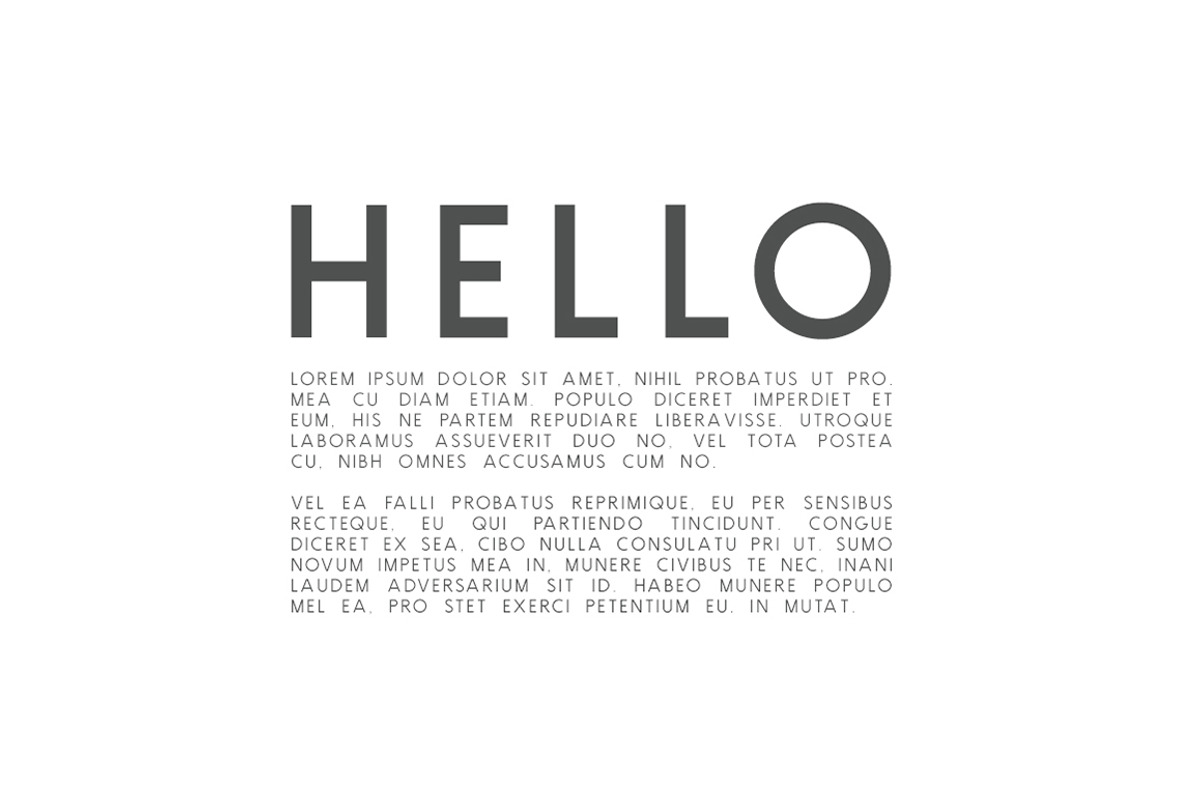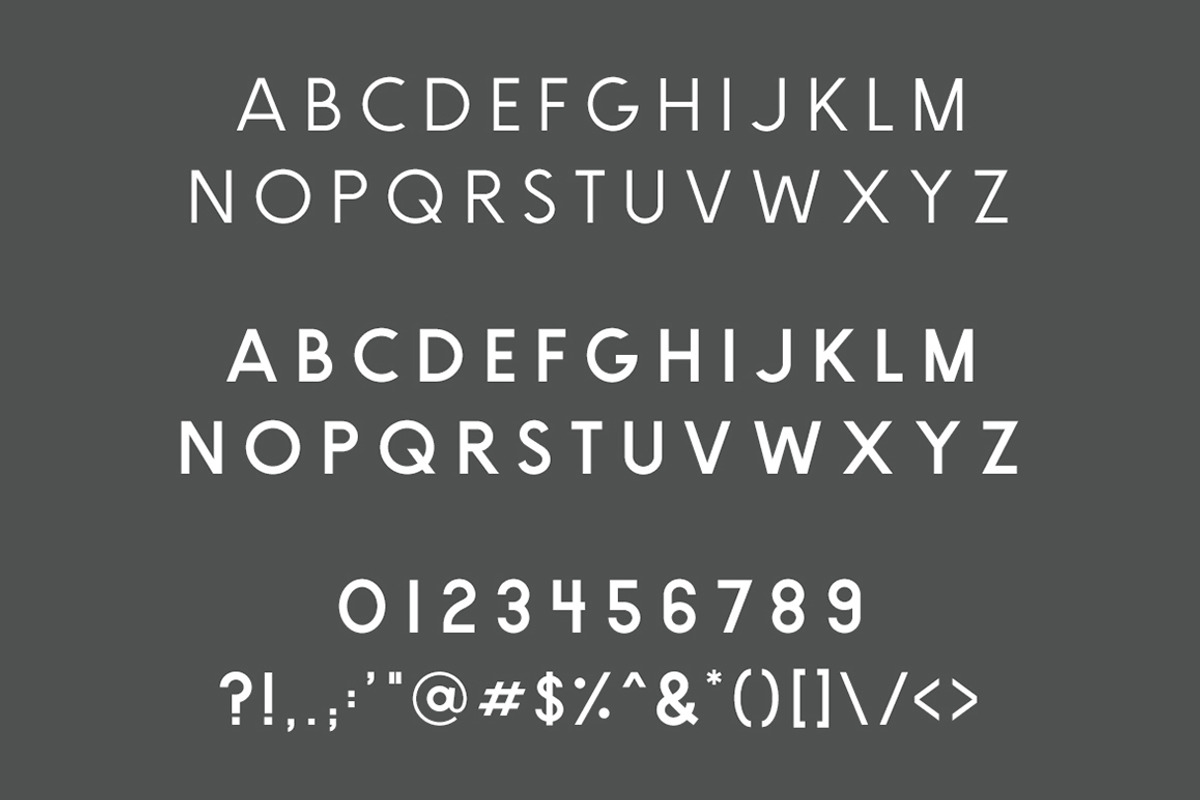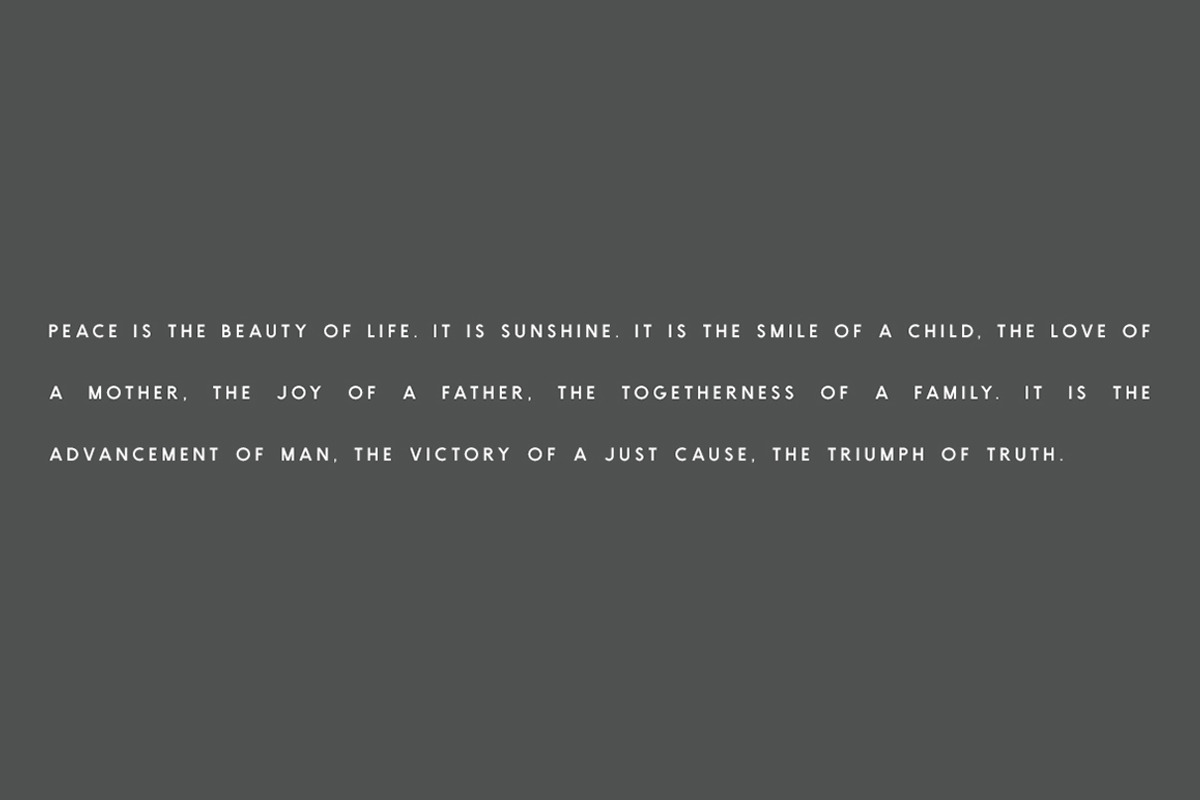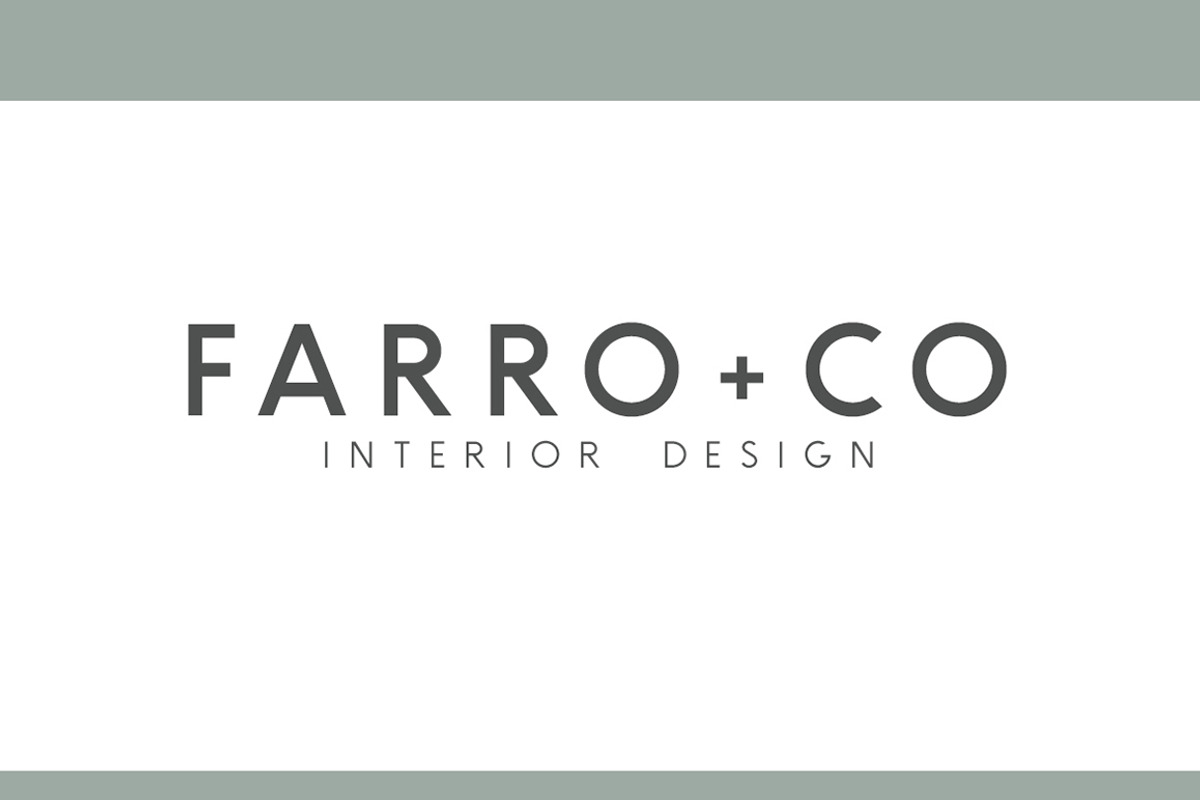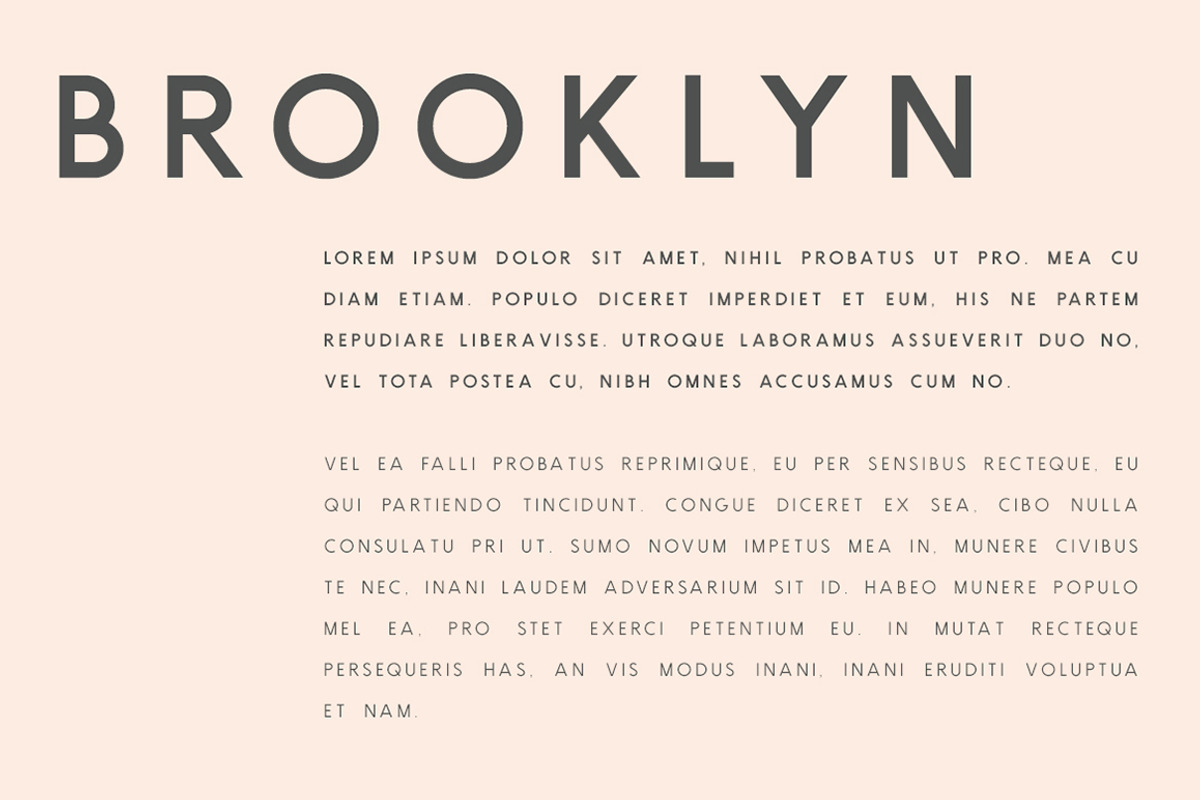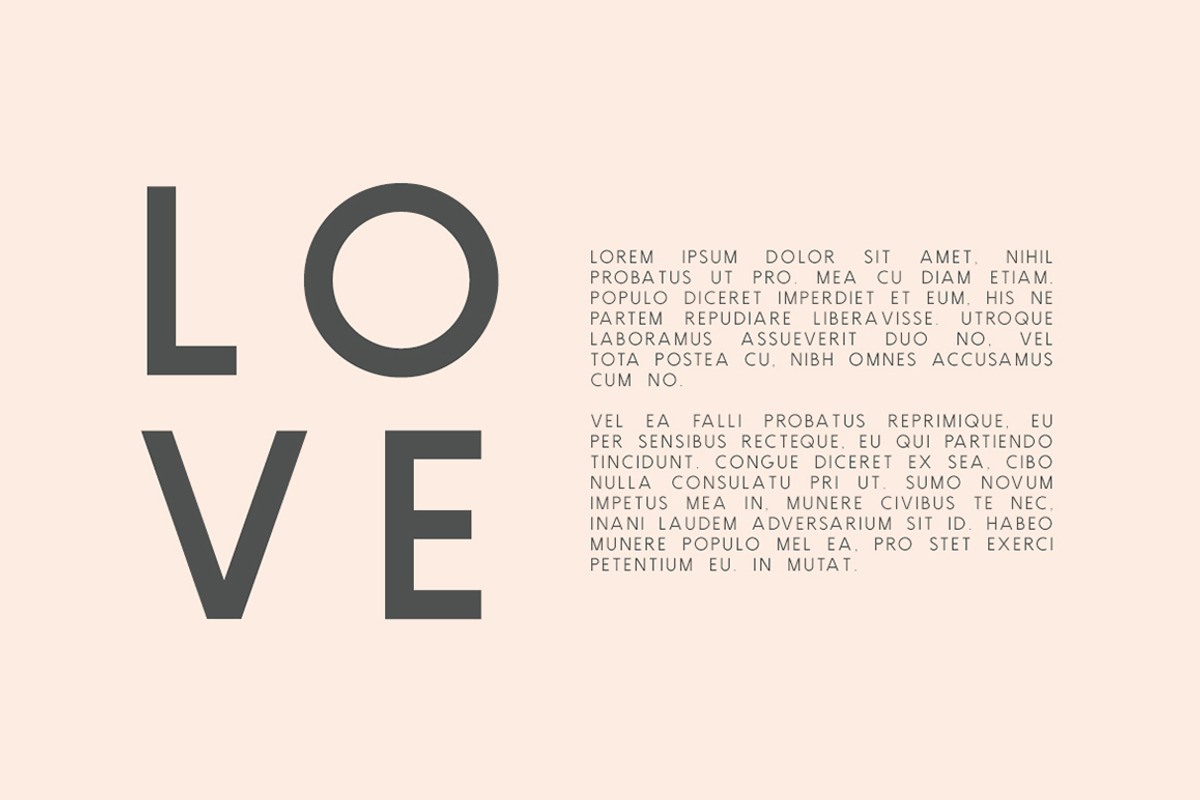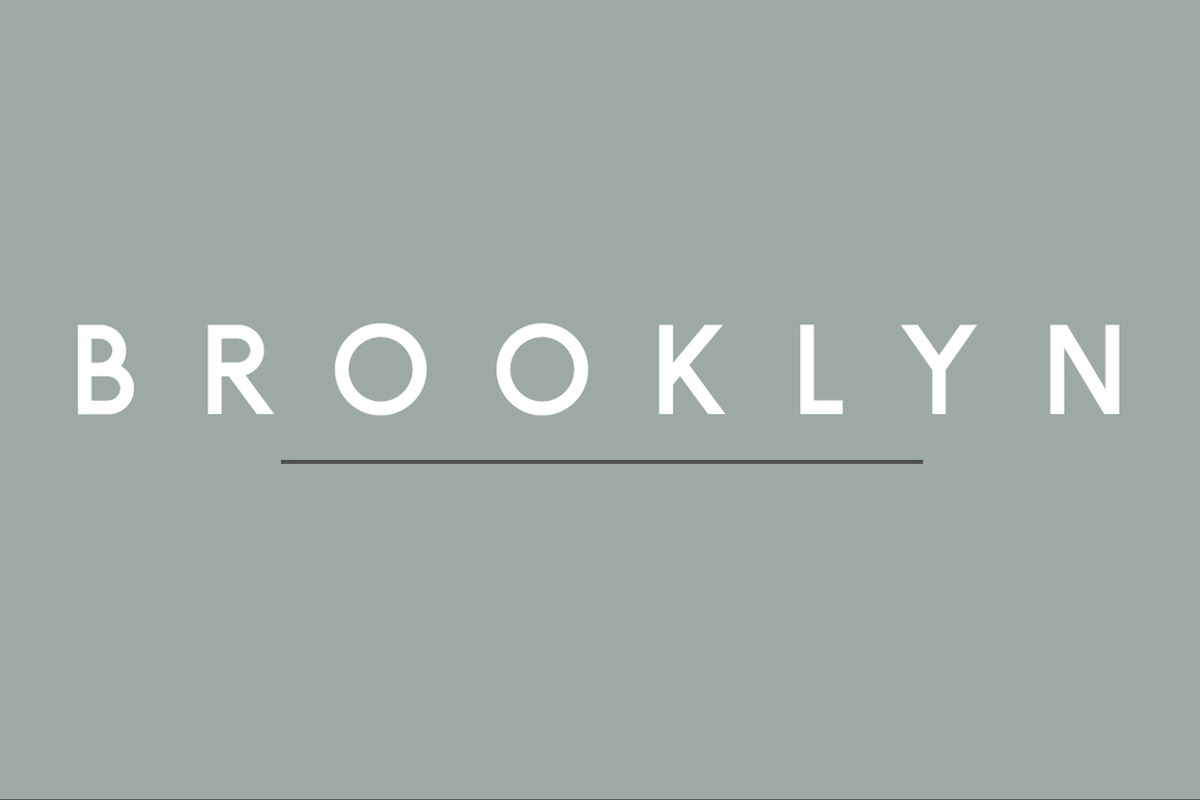
Brooklyn | Two Weight Font Family
Brooklyn is a stunning all-caps sans serif that comes in two beautiful weights to complement every project you're working on. Resembling a cross between Futura and Gotham, Brooklyn will very easily become a staple in your type kit. Use to create beautiful headings, gorgeous invitations, stunning logos, and so much more!! I think Brooklyn looks best with wide-set spacing (headers on sample images feature spacing set around 500). You can recreate the spacing in the sample bar below by including spaces between each of your letters.
- two weights
- uppercase letters
- numbers & punctuation
- foreign language support